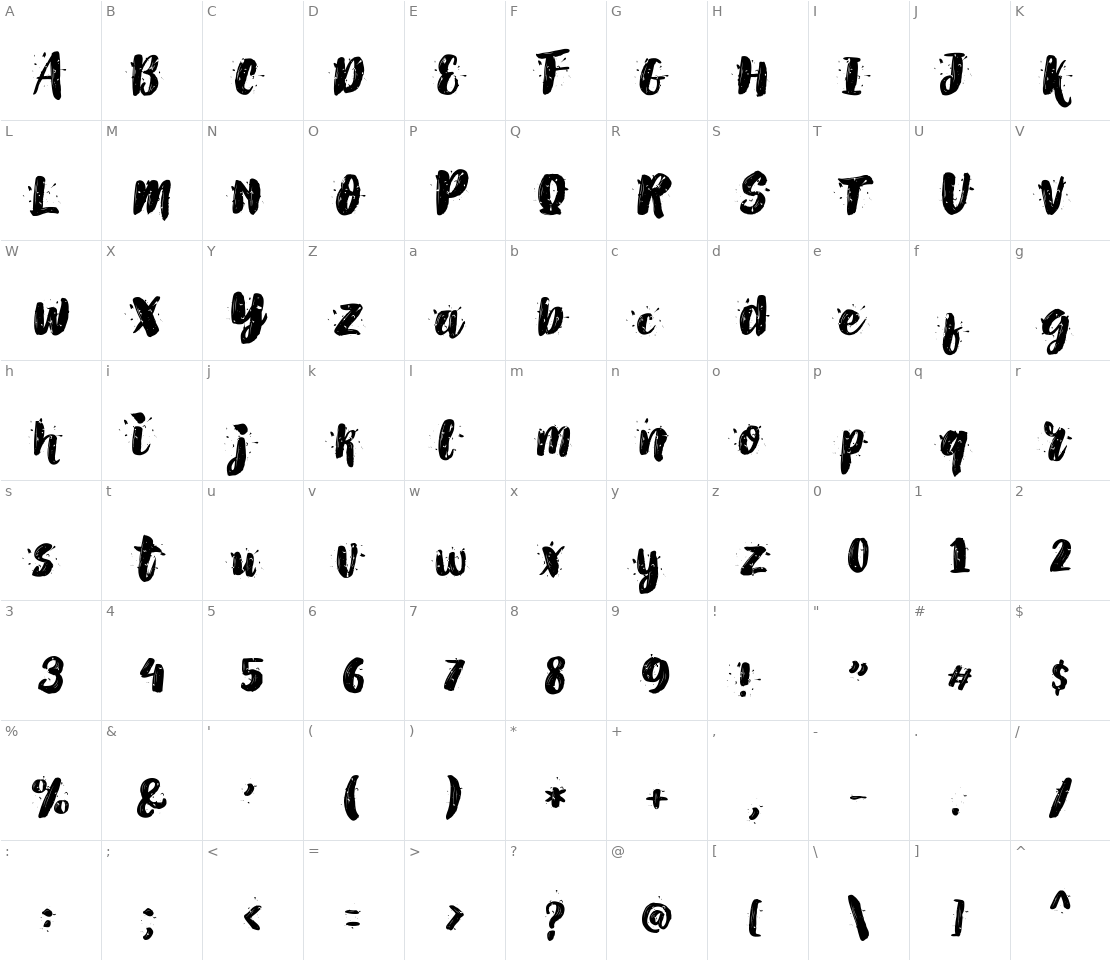
Alex Dirte
Alex Dirte is a heavy brush face from Debut Studio with raw, splattery edges that feel like ink flung at paper with real force. The letterforms are bold and deliberately messy, with visible texture and grunge that give each character a worn, physical presence. Built for headlines, gig posters, and packaging where you want type that looks like it was made fast and loud.